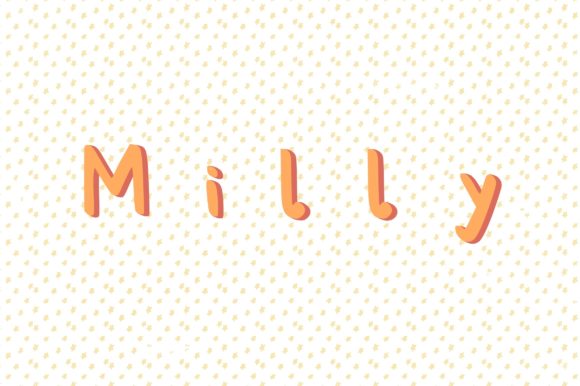
Behold the enchanting world of Milly Font, a captivating script that captures the essence of playful handwritten artistry. Stroke by stroke, Milly dances across your screens, its bold and vivacious nature commanding attention wherever it graces. Whether you're a seasoned designer or just starting your creative journey, Milly Font is the perfect companion to unleash your imagination and transform your words into captivating works of art.
With Milly Font, your headlines and titles take on a life of their own, exuding a charm that resonates with your audience. Its meticulously crafted characters, reminiscent of a skilled calligrapher's hand, lend an authentic and timeless touch to your posters, websites, and any other design endeavor you can dream of.
As you immerse yourself in the world of Milly Font, you'll discover a symphony of emotions effortlessly conveyed through its graceful lines and curves. Its bold strokes evoke a sense of confidence and strength, while its playful nature adds a touch of whimsy and delight. Whether you seek to inspire, uplift, or simply capture the attention of your audience, Milly Font possesses the power to evoke emotions and leave a lasting impression.